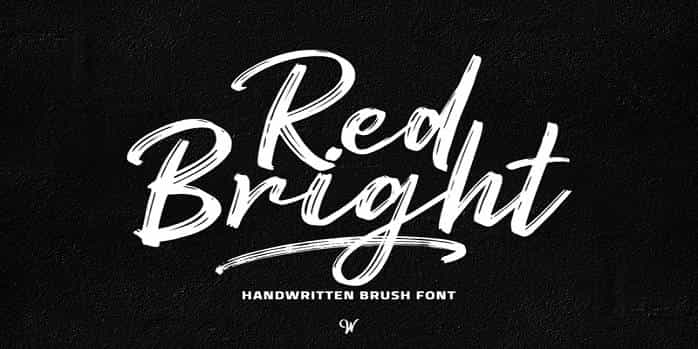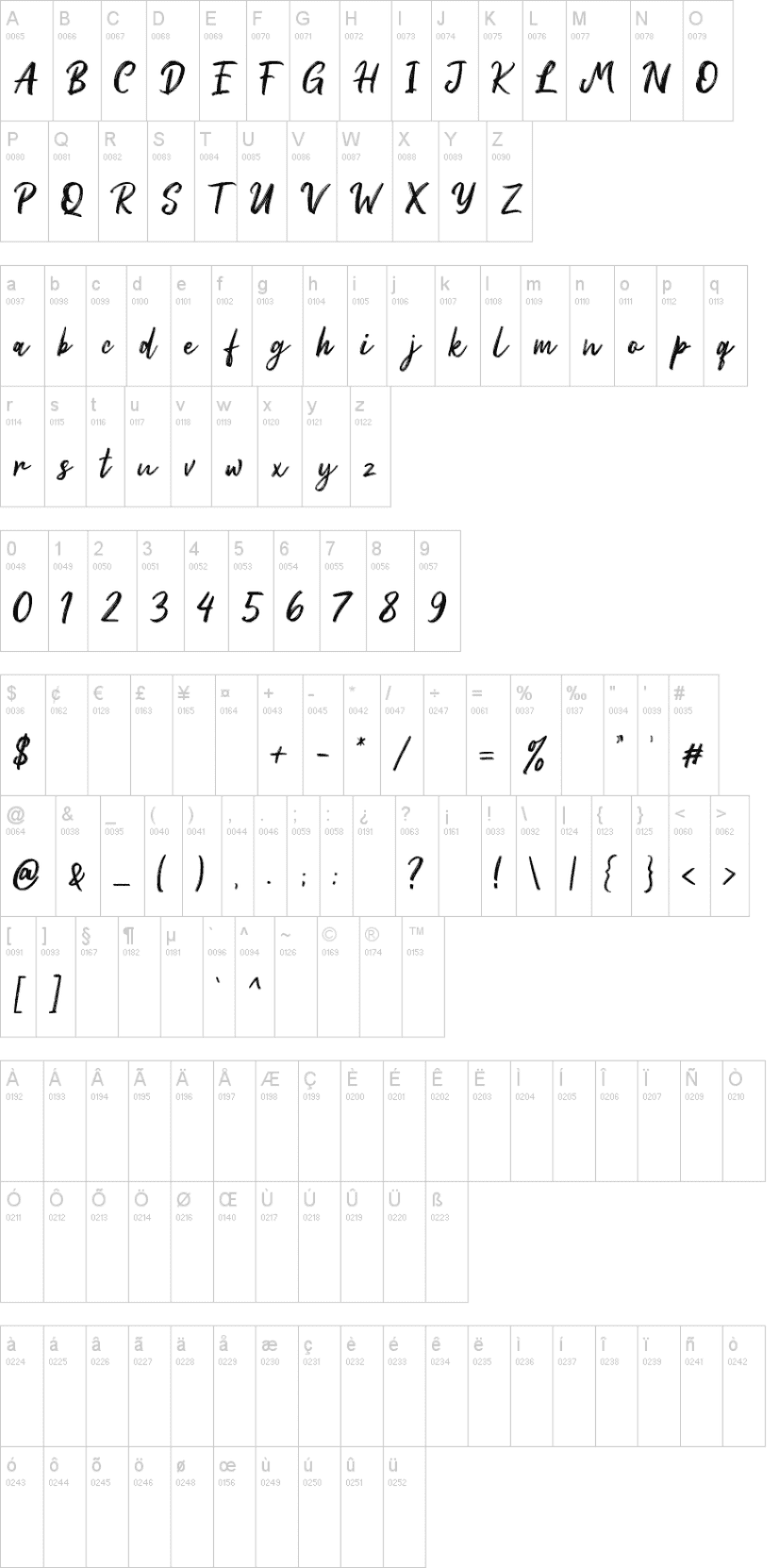
Discover Red Bright Font, part of the Brush collection—a versatile and unique font perfect for adding a personal touch to your projects. Download it for free and enjoy crafting designs with style, from invitations to social media posts. This font is available exclusively for personal use, giving you the freedom to create without limits. Unlock your creativity with Red Bright Font today!
A high quality Brush font is Red Bright, which is created by Weape Design, and it is free to download and for personal use. The free version offers both uppercase and lowercase letters and some special characters as well.